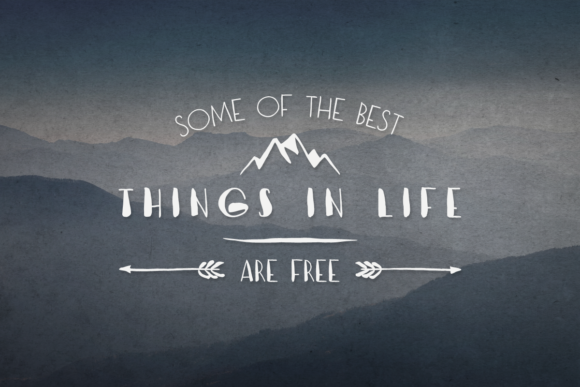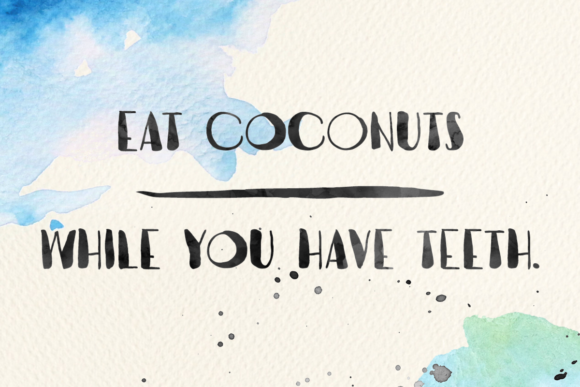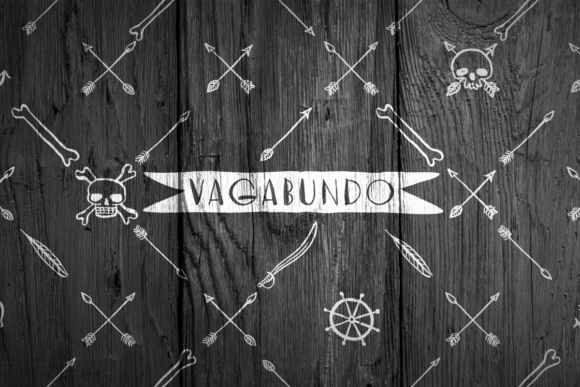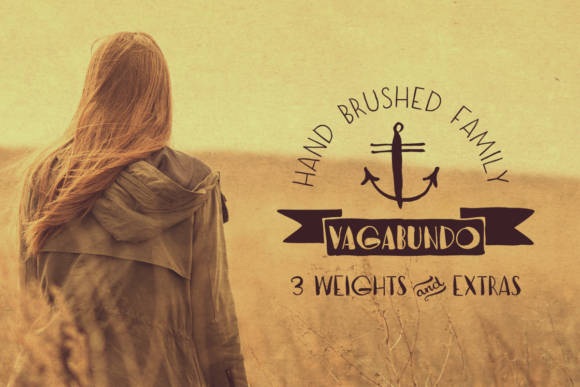
Vagabundo Family Font
About Vagabundo Family Font
Vagabundo is an impressive and versatile font family designed by Juraj Chrastina. With seven distinct styles, Vagabundo has a wide range of possibilities for designing unique and original graphics.
The hand display and brush display styles add a wonderful handcrafted quality to your designs, while the dingbat style can be combined with symbols, ornaments, and banners to create an even more original design.
Whether you’re designing logos, headers, graphics, or other types of visual content, Vagabundo can add a touch of personality and uniqueness to your work. With its diverse range of styles and symbols, Vagabundo is a great addition to any designer’s font library.
Vagabundo can be a great option for projects that need a bit of whimsy and individuality, making it a perfect choice for designers, artists, or small businesses that want to stand out in their designs. The different weights and styles allow you to create a wide range of designs, from simple and minimal to complex and decorative. With a little creativity and skill, Vagabundo can help you create unique and memorable designs that will make your project stand out from the competition.
If you’re looking for a versatile and unique font for your next project, Vagabundo is definitely worth considering. With seven distinct styles and a wide range of symbols and ornaments, Vagabundo can add a touch of whimsy and distinction to your designs. Plus, with its hand display and brush display styles, Vagabundo can also add a handmade and authentic touch to your graphics, making it a great choice for designers looking for a truly original and creative font.
Overall, Vagabundo is a great font that can help you create memorable and distinctive designs. With its wide range of styles and symbols, it’s a flexible tool for designers, artists, or businesses that want to add a touch of personality and individuality to their work. Vagabundo can be used for a wide range of projects, from logos and graphics to headers and other types of visual content, making it a great choice for designers looking for a versatile and unique font.